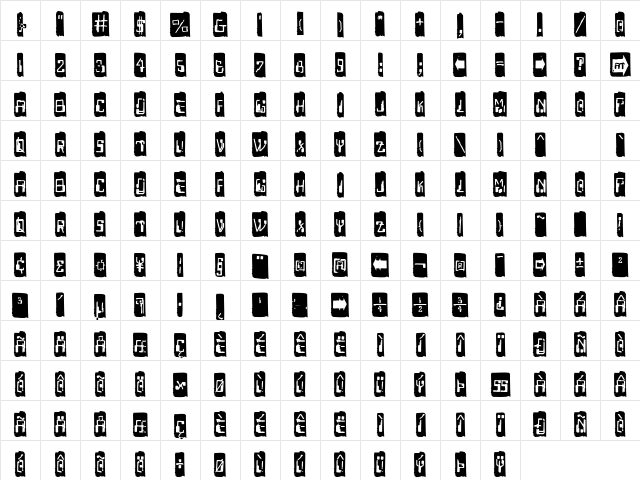
Capricorn38 Cameo Free Font
Capricorn38 Cameo
Style: Cameo
Complete Capricorn38 Cameo glyph index. Displaying only characters natively supported by Capricorn38 Cameo font.
Design Context for Capricorn38
Capricorn38 is a composed and adaptable typeface that performs quietly and consistently across a wide range of design contexts.